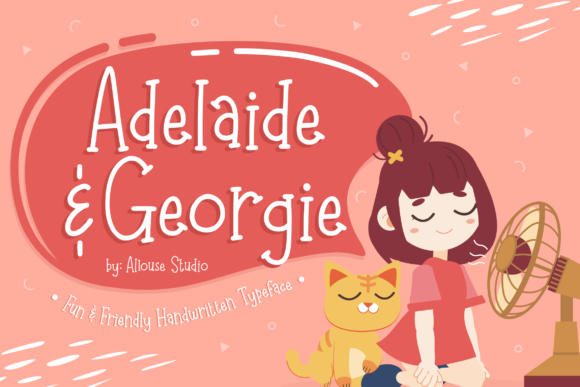
Adelaide & Georgie Font: A Cute and Friendly Display Font for Your Creative Projects
Are you looking for a font that can add a touch of friendliness and approachability to your creative projects? Look no further than the Adelaide & Georgie font. This original and cute display font is perfect for a wide range of crafty ideas, from letterheads and titles to stationery. In this article, we’ll take a closer look at the Adelaide & Georgie font and explore its features, benefits, and uses.
What is Adelaide & Georgie Font?
Adelaide & Georgie is a display font designed to add a personal touch to your creative projects. The font features a unique and original look that is both cute and friendly. Its playful and approachable design makes it perfect for projects that require a touch of whimsy and personality.
The font is designed to be highly versatile, making it suitable for a wide range of applications. Whether you’re looking to create a letterhead, title, or stationery, Adelaide & Georgie is the perfect choice. Its clean and crisp design ensures that it remains legible even at small sizes, making it ideal for use in a variety of contexts.
Key Features of Adelaide & Georgie Font
So, what makes Adelaide & Georgie font stand out from the crowd? Here are some of its key features:
- Cute and Friendly Design: The font features a unique and original design that is both cute and friendly.
- Highly Versatile: Adelaide & Georgie is suitable for a wide range of applications, from letterheads and titles to stationery.
- Clean and Crisp Design: The font has a clean and crisp design that remains legible even at small sizes.
- Playful and Approachable: The font’s playful and approachable design makes it perfect for projects that require a touch of whimsy and personality.
Benefits of Using Adelaide & Georgie Font
So, why should you choose Adelaide & Georgie font for your creative projects? Here are some of the benefits of using this font:
- Adds a Personal Touch: Adelaide & Georgie font adds a personal touch to your creative projects, making them more approachable and engaging.
- Perfect for Crafty Ideas: The font is perfect for crafty ideas, such as letterheads, titles, and stationery.
- Highly Legible: The font’s clean and crisp design ensures that it remains legible even at small sizes.
- Unique and Original: Adelaide & Georgie font has a unique and original design that sets it apart from other fonts.
Uses of Adelaide & Georgie Font
Adelaide & Georgie font is highly versatile and can be used in a wide range of applications. Here are some of the uses of this font:
- Letterheads: Use Adelaide & Georgie font to create professional-looking letterheads that add a personal touch.
- Titles: The font is perfect for creating eye-catching titles for books, magazines, and other publications.
- Stationery: Use Adelaide & Georgie font to create custom stationery, such as notecards, greeting cards, and invitations.
- Signage: The font is also suitable for use in signage, such as banners, posters, and flyers.
Tips for Using Adelaide & Georgie Font
Here are some tips for using Adelaide & Georgie font effectively:
- Use it Sparingly: Use Adelaide & Georgie font sparingly to avoid overwhelming the reader.
- Pair it with Other Fonts: Pair Adelaide & Georgie font with other fonts to create visual interest and contrast.
- Experiment with Sizes: Experiment with different sizes to find the perfect balance for your design.
- Use it in Color: Use Adelaide & Georgie font in color to add visual interest and personality to your design.
Adelaide & Georgie font is a cute and friendly display font that is perfect for adding a personal touch to your creative projects. Its highly versatile design makes it suitable for a wide range of applications, from letterheads and titles to stationery. With its clean and crisp design, playful and approachable personality, and unique and original look, Adelaide & Georgie font is the perfect choice for crafty ideas and creative projects.